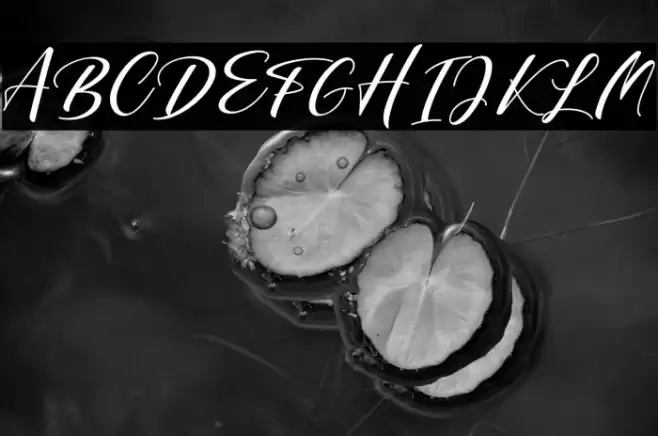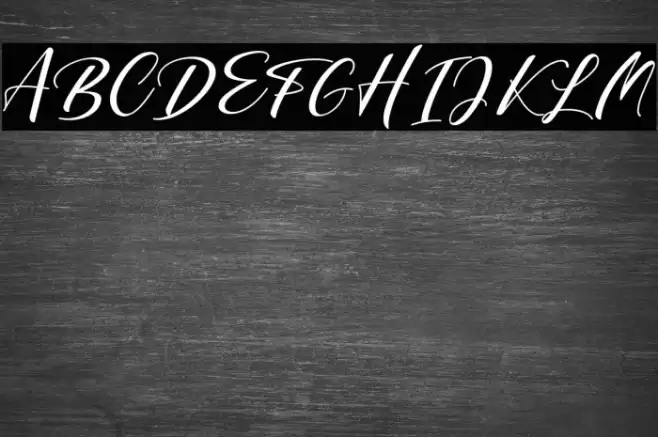
Shintyan Font
Shintyan Description
This font exudes elegance and sophistication with its fluid, cursive style. The uppercase letters are characterized by sweeping curves and delicate flourishes, giving them a sense of movement and grace. The lowercase letters maintain a consistent flow, with some characters featuring unique loops and swashes that add to the overall charm. The numerals are designed to complement the letters, with a similar emphasis on curves and fluidity. Special characters are seamlessly integrated, maintaining the font's cohesive aesthetic. This font is perfect for projects that require a touch of elegance and personal flair.
An elegant, cursive font with fluid strokes and graceful curves from Uncategorized fonts.
- Proposed Projects: Ideal for wedding invitations, elegant branding, personal stationery, and decorative quotes.
- Overall Style: Elegant
- Use Case: Logos, Invitations, Decorative text